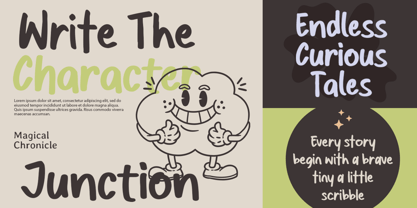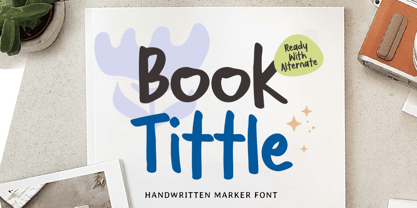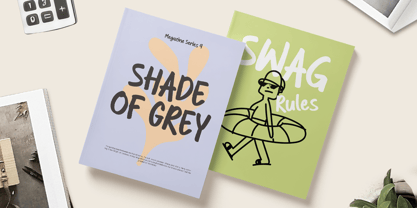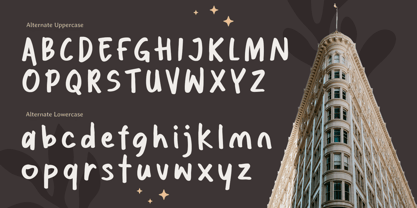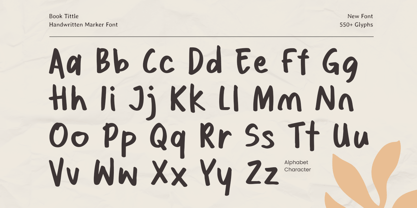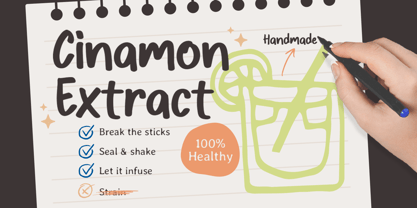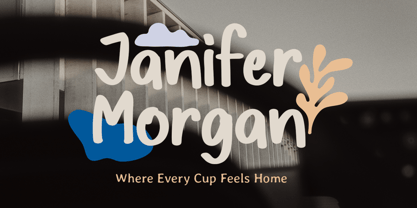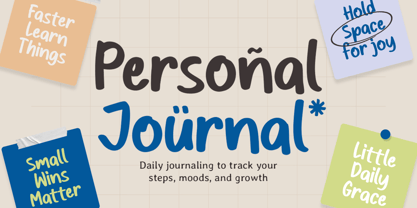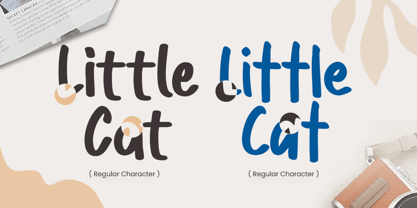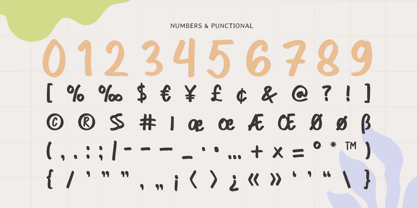
BOOK TITTLE is a handwritten marker font crafted to bring bold, expressive personality to your typography. With thick marker strokes and a natural handwritten flow, this typeface delivers an energetic, human feel that looks confident, warm, and instantly eye-catching.
Designed for title-driven layouts, BOOK TITTLE works beautifully for book covers, chapter titles, posters, banners, social media graphics, packaging, and creative branding. Its marker texture and bold presence make it perfect for designs that need a friendly handmade voice while staying clear and readable at display sizes.
Whether you’re creating a modern book cover, a motivational quote design, or a playful brand visual, BOOK TITTLE adds expressive marker charm that makes your message feel personal and memorable across digital and print projects.
Inspiration Behind BOOK TITTLE
BOOK TITTLE is inspired by handwritten marker lettering seen in notebooks, creative sketches, and bold cover typography. Built to make titles stand out, it supports expressive headlines and creative layouts where a natural hand-drawn feel helps storytelling look more human, warm, and engaging.
BOOK TITTLE Font Features
Bold handwritten marker letterforms with natural stroke flow
Optimized for book titles, headlines, and display typography
Clear readability with strong, expressive character
Uppercase, lowercase, numerals, and punctuation included
OpenType features for polished, flexible typesetting
Perfect For
Book covers, titles, and chapter headings
Posters, banners, and bold promotional headlines
Quotes, social media graphics, and creative campaigns
Packaging, labels, and friendly branding visuals
Educational and creative content design
Multilingual Support
Make your titles feel bold and personal with BOOK TITTLE—crafted for handwritten marker impact and creative storytelling. 🖊️✨